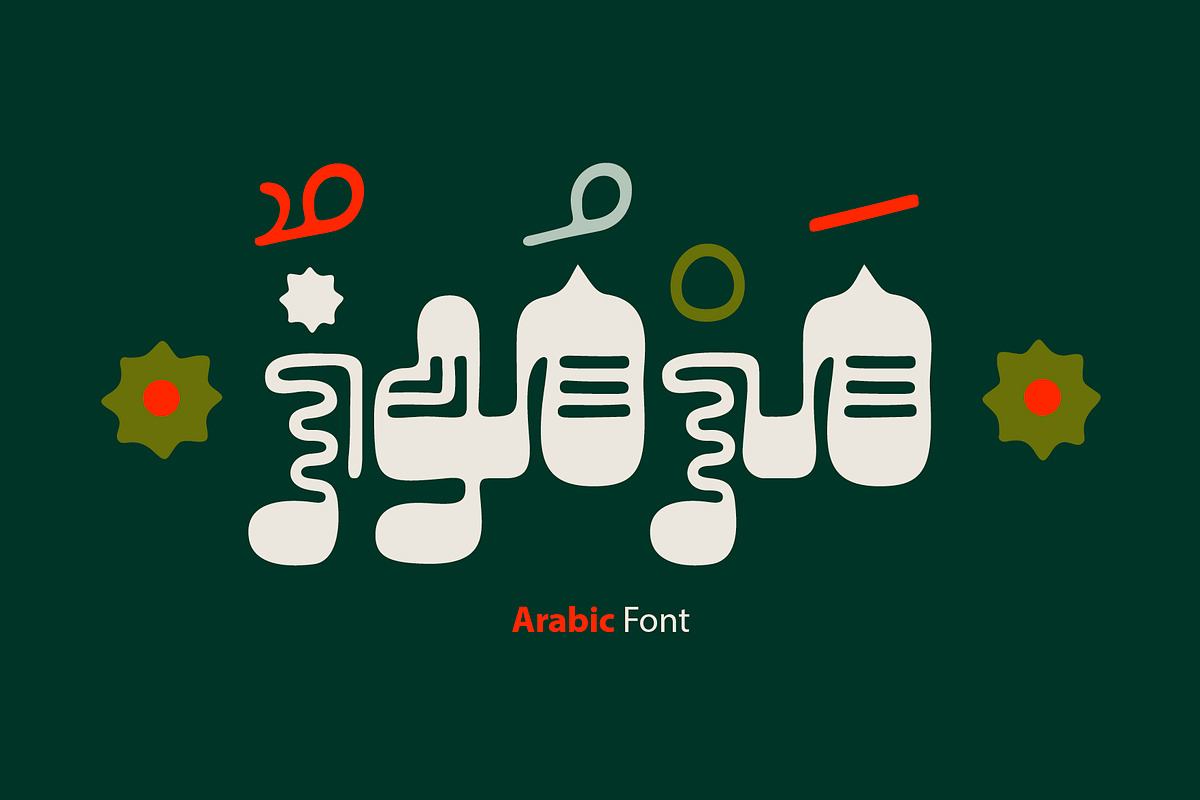
Marmooz - Arabic Font Free Download is a bold and expressive Arabic typeface that blends traditional calligraphic elements with a fresh, modern twist. With its smooth curves, balanced proportions, and strong visual presence, Marmooz is perfect for branding, editorial headlines, packaging, advertising, and digital content that aims to honor Arabic aesthetics with a contemporary edge.
Designed for readability and flair, Marmooz works beautifully in both print and digital contexts. Whether you're creating a cultural campaign, designing signage, or crafting a logo, this font brings authenticity and visual impact to Arabic-script designs.